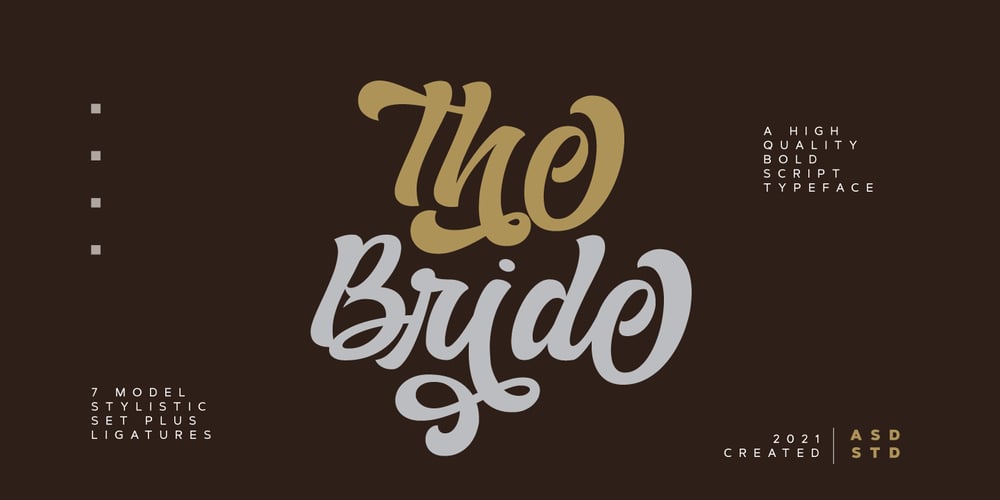
The Bride
The Bride font
The Bride Font Family was designed by Ghazi and published by Asd Studio. The Bride contains 1 styles and family package options. Introducing the new font The Bride a bold script. This font suitable for use in a variety of design fields, such as event advertisements, product promotions, book titles, activity titles, logos, adventure, and others. This font is equipped with 7 models stylistic set that will make your design look more attractive and beautiful. Features: – Uppercase – Lowercase – Number & punctuations – Multilingual – 7 Models Stylisticset – Ligatures and alternates character – PUA encoded I highly recommend using a program that supports OpenType featuresand Glyphs panels such as Adobe Illustrator, Adobe Photoshop CC, Adobe InDesign, or CorelDraw, so you can see and access all Glyph variations. This font is encoded with Unicode PUA, which allows full access toall additional characters without having special design software. Mac users can use Font Book, and Windows users can use Character Map to view and copy one of the extra characters to paste into your favorite text editor / application. I hope you enjoy the font, thank you.